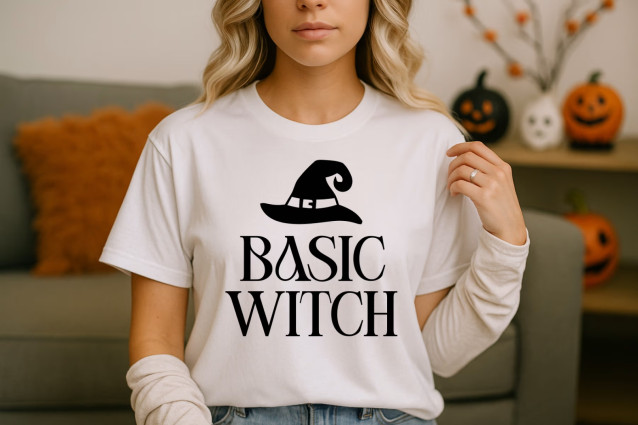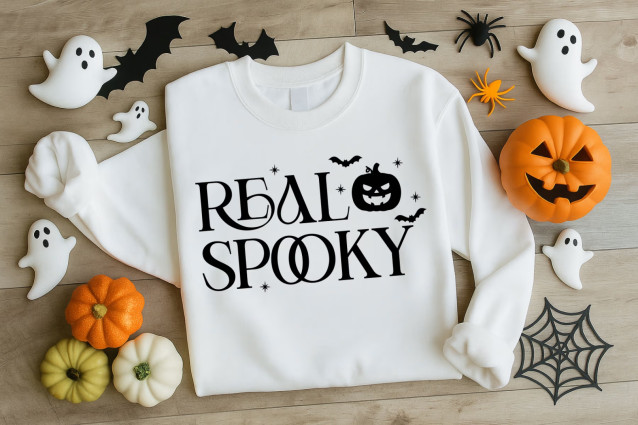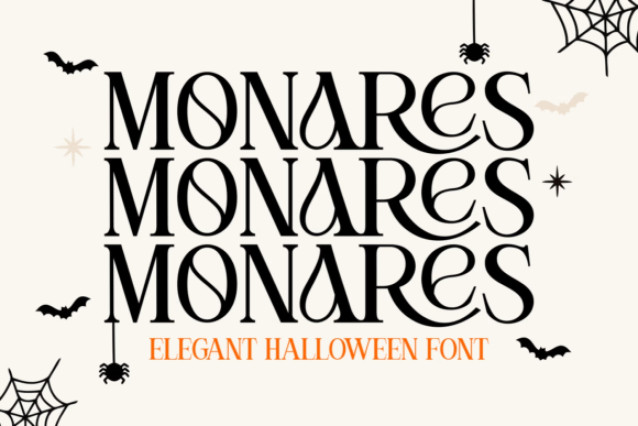
Monares Font
Introducing Monares, a distinctive serif font, artistically crafted and etched with the bewitching charm of Halloween. This luxury design offers uniqueness and godlike versatility, making it the perfect choice to elevate your creative projects. Endowed with an air of opulence, Monares truly encapsulates the mystical spirit of All Hallows’ Eve, while still ensuring your work stands out in a sea of commonplace designs.